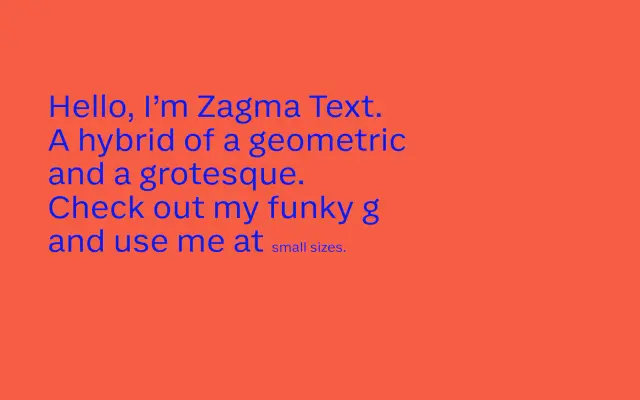
F37 Zagma Text
F37 Zagma Text specimen from F37 Foundry
The text-optimised sans within the F37 Zagma superfamily, with twelve styles tuned for body copy and interfaces alongside the display Zagma.
A text sans by F37 drawn as the body-copy cut of the F37 Zagma superfamily. Twelve styles span six weights from Light to Black with matching italics, with the proportions and details tuned for sustained reading on screen and in print. Pair it with F37 Zagma for display, F37 Zagma Serif for editorial contrast and F37 Zagma Mono for technical settings within a single brand system.
The text-optimised sans within the F37 Zagma superfamily, tuned for body setting and interfaces while keeping the hybrid geometric-grotesque voice of the parent display sans.